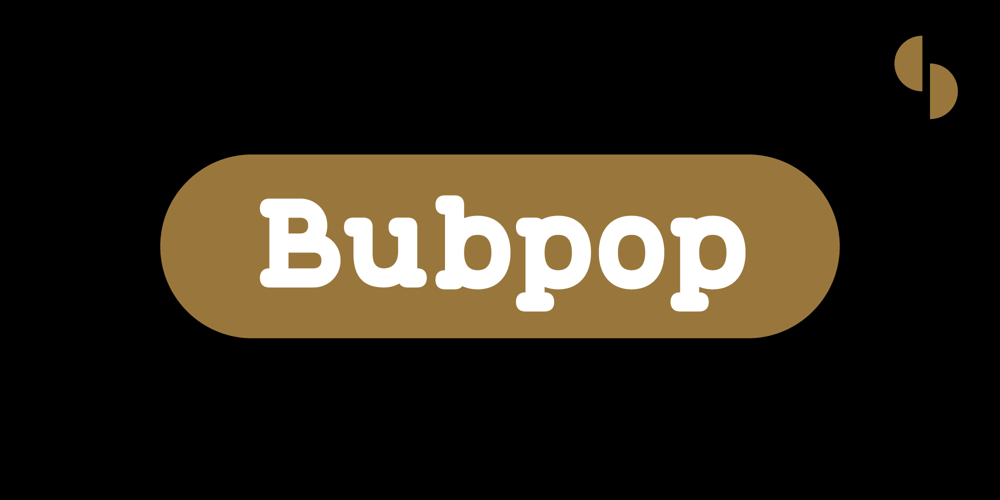
Bubpop Font Family was designed by SAMUEL DU and published by SAMUEL DESIGN. Bubpop contains 1 styles and family package options. The name of this font is Bubpop. The features of the serif body are combined with the non-sans-serif body. Structuring and reconstructing the serif font, we get a very modern font effect. The font effect is not only rounded, but also has clever ideas and solemn details. This treatment makes this font more widely used and remains different.